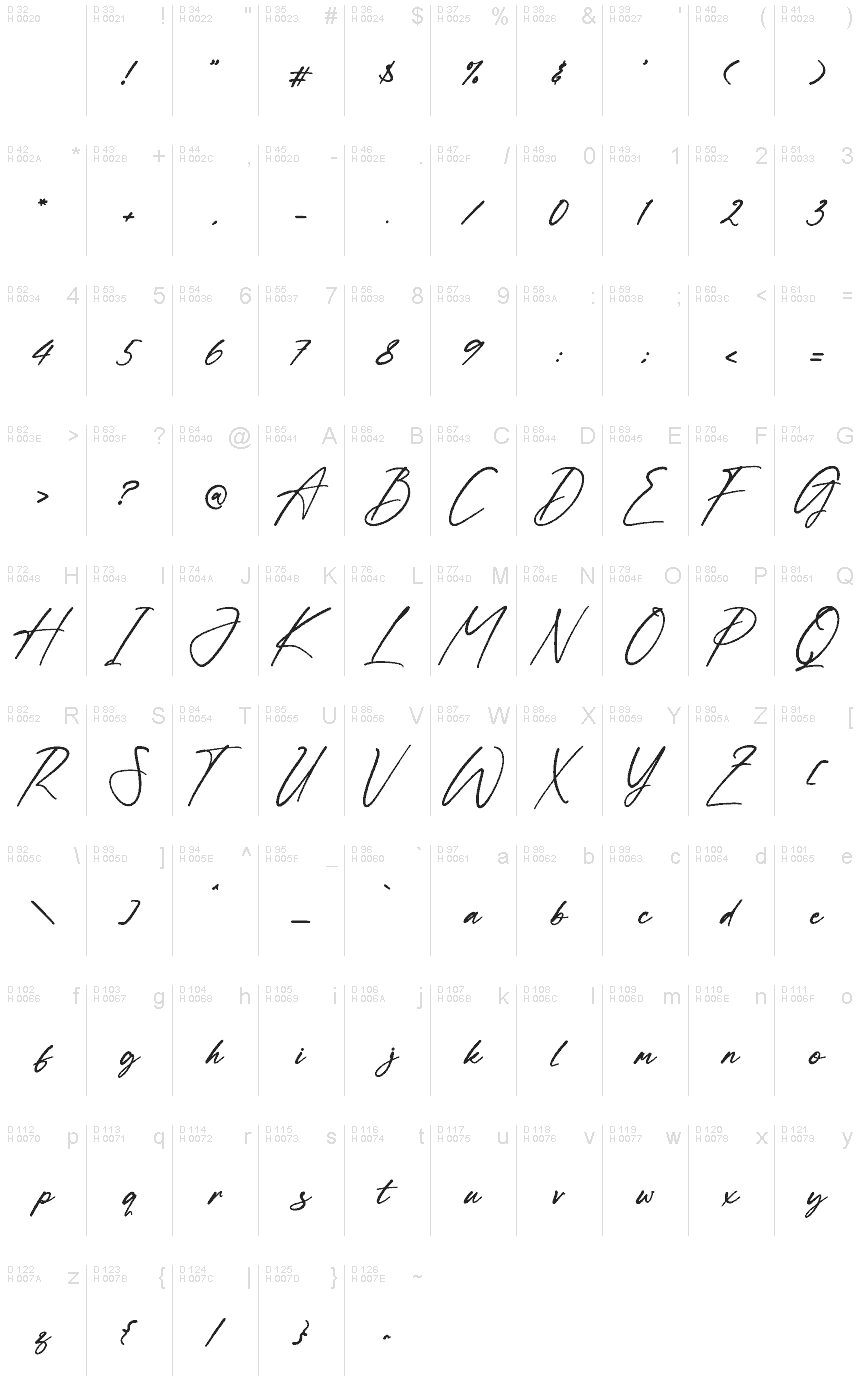
Andryaton Detagheart font by Letterena Studios is an elegant, flowing handwritten font with a signature look. This light font carries sophistication and grace in its core style and gives all texts a refined, cursive look. Every viewer will surely fall in love with each letter written with it.
This free handwritten font is ideal for creating logos on businesses cards for photographers and other creative professionals. Other uses include product packaging, clothing design, website banners, social media posts, book covers and pages. The sky's the only limit to your imagination of the ways you can carry out your projects using Andryaton Detagheart!